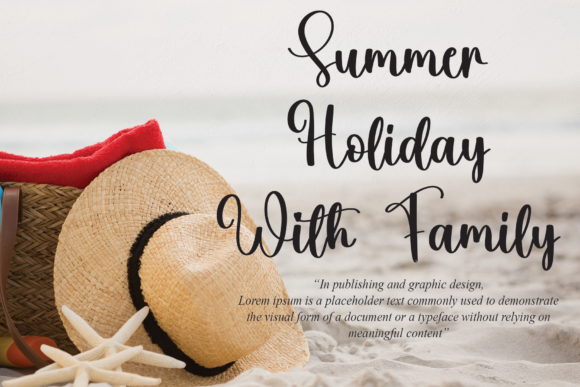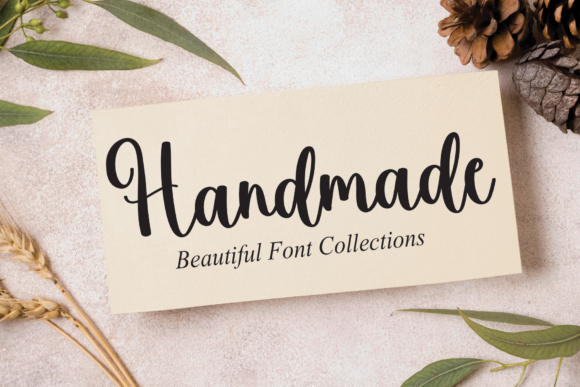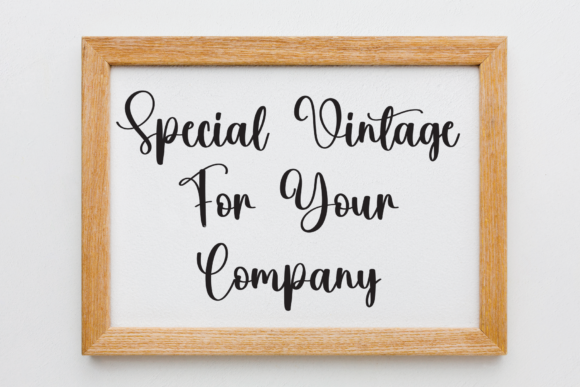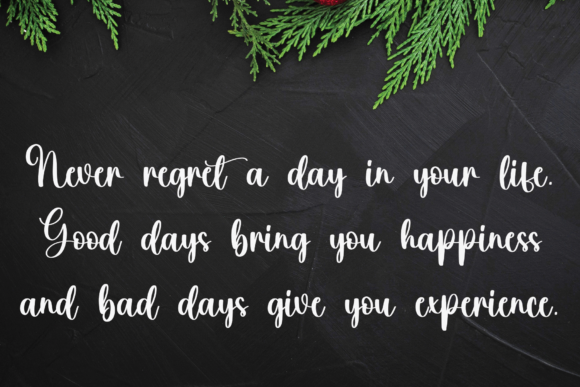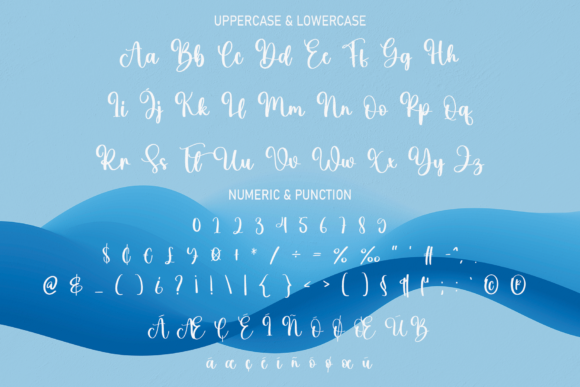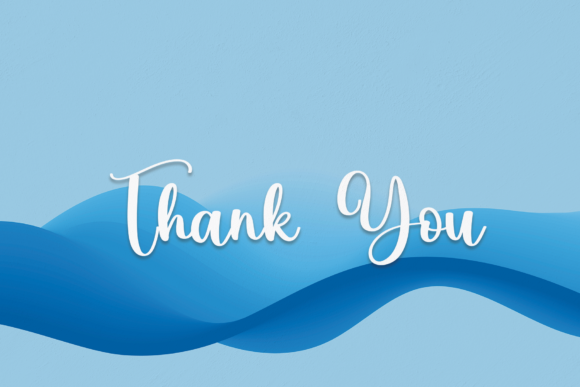
Branding Font
“Branding” is a font that embodies grace and elegance through its distinct and sophisticated script design. With its captivating style, it offers designers the opportunity to create stunning and visually appealing designs that leave a lasting impression.
The font’s graceful and flowing script is particularly well-suited for branding purposes. Its unique letterforms and smooth curves exude a sense of refinement, making it an excellent choice for businesses and brands that want to communicate a sense of luxury, exclusivity, and high-quality. The font’s PUA encoding ensures that designers can easily access its wide range of glyphs and swashes, allowing for seamless customization and personalization.
In logo design, “Branding” can add a touch of sophistication that sets a brand apart. Its exquisite script can be used to create elegant and memorable logos that effectively capture the essence of a company’s identity. The font’s versatility allows it to work well for various industries, from fashion and beauty to hospitality and lifestyle.
Product packaging can benefit from the captivating charm of “Branding.” Its distinct style can elevate the visual appeal of labels, tags, and packaging materials, contributing to a cohesive and polished brand image. The font’s PUA encoding empowers designers to effortlessly incorporate swashes and alternate characters, enabling them to create custom typography that aligns with the brand’s aesthetic.
In the world of stationery and marketing materials, “Branding” adds a touch of class to business cards, letterheads, and promotional materials. Its graceful script imparts a sense of professionalism and sophistication, making it an ideal choice for businesses that want to make a lasting impression on their clients and customers.
The PUA encoding of “Branding” enhances its usability and customization options. Designers can explore various combinations of glyphs and swashes to create unique and captivating typography for their projects. This level of flexibility allows for the creation of designs that reflect the brand’s personality and message.
In summary, “Branding” is a distinct and graceful script font that radiates elegance and sophistication. Its PUA encoding makes it easy for designers to access its range of glyphs and swashes, enabling them to create bespoke typography that captures the essence of the brand. Whether used in logos, packaging, stationery, or marketing materials, “Branding” adds a touch of refinement that resonates with audiences and elevates the overall design aesthetic.